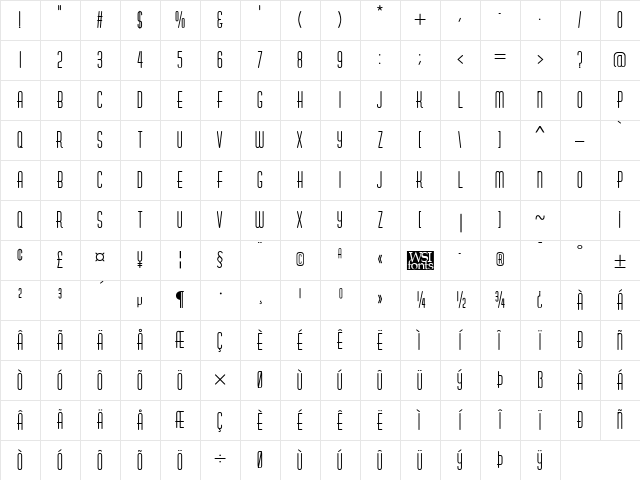
Astute Caps Regular
Design Context for Astute Caps
Astute Caps is a composed and adaptable typeface that performs quietly and consistently across a wide range of design contexts.
Pro Tip: Use Astute Caps in both headline and body roles to test its range before committing to a single application.